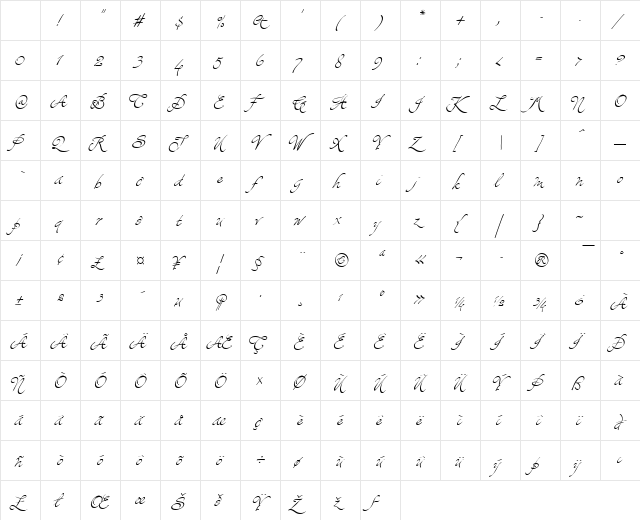
Christophs Quill ITC Regular
Foundry: International Typeface Corporation
Designer: Russell Bean
Design Context for Christophs Quill ITC
Christophs Quill ITC is a composed and adaptable typeface that performs quietly and consistently across a wide range of design contexts.